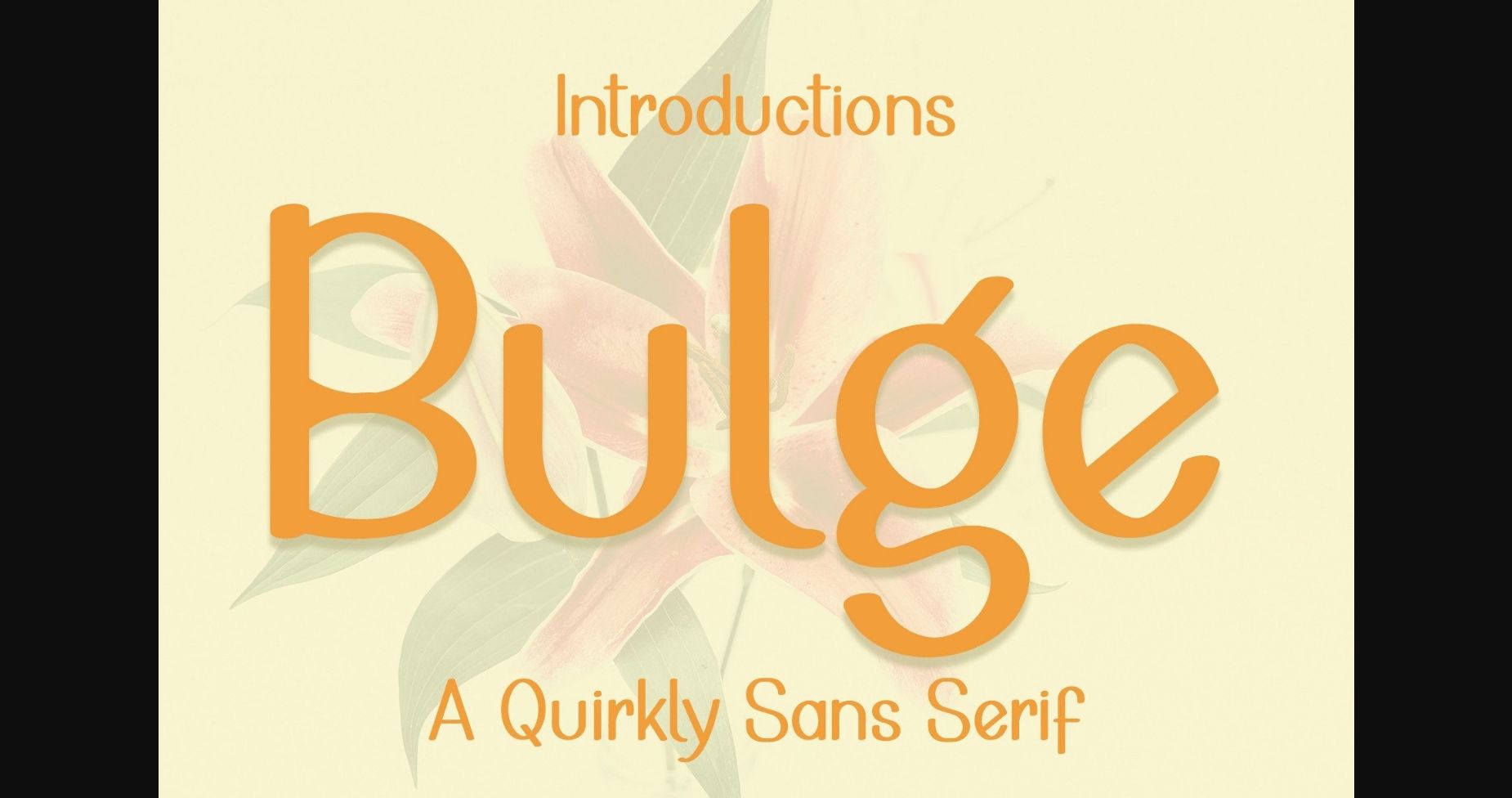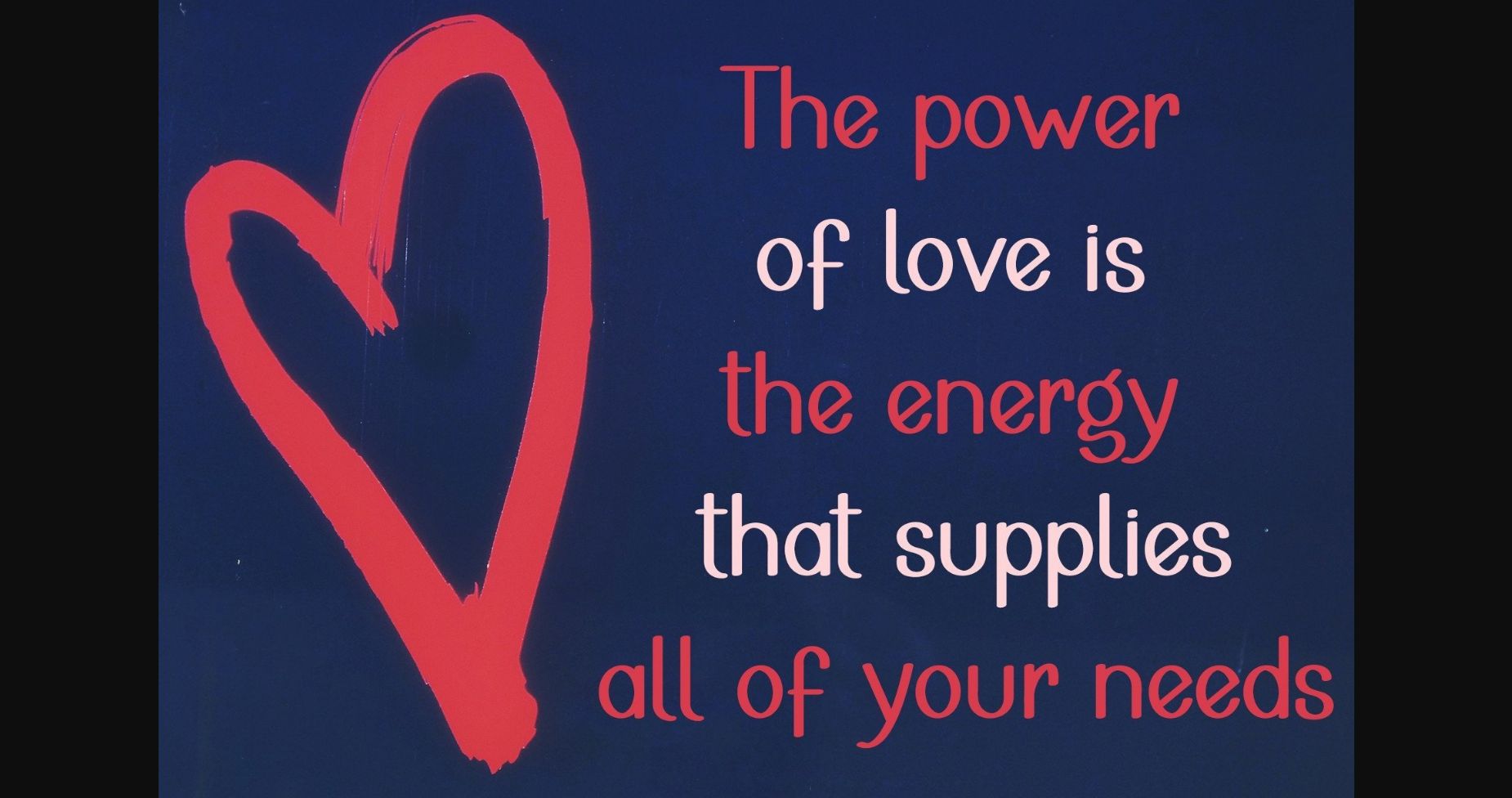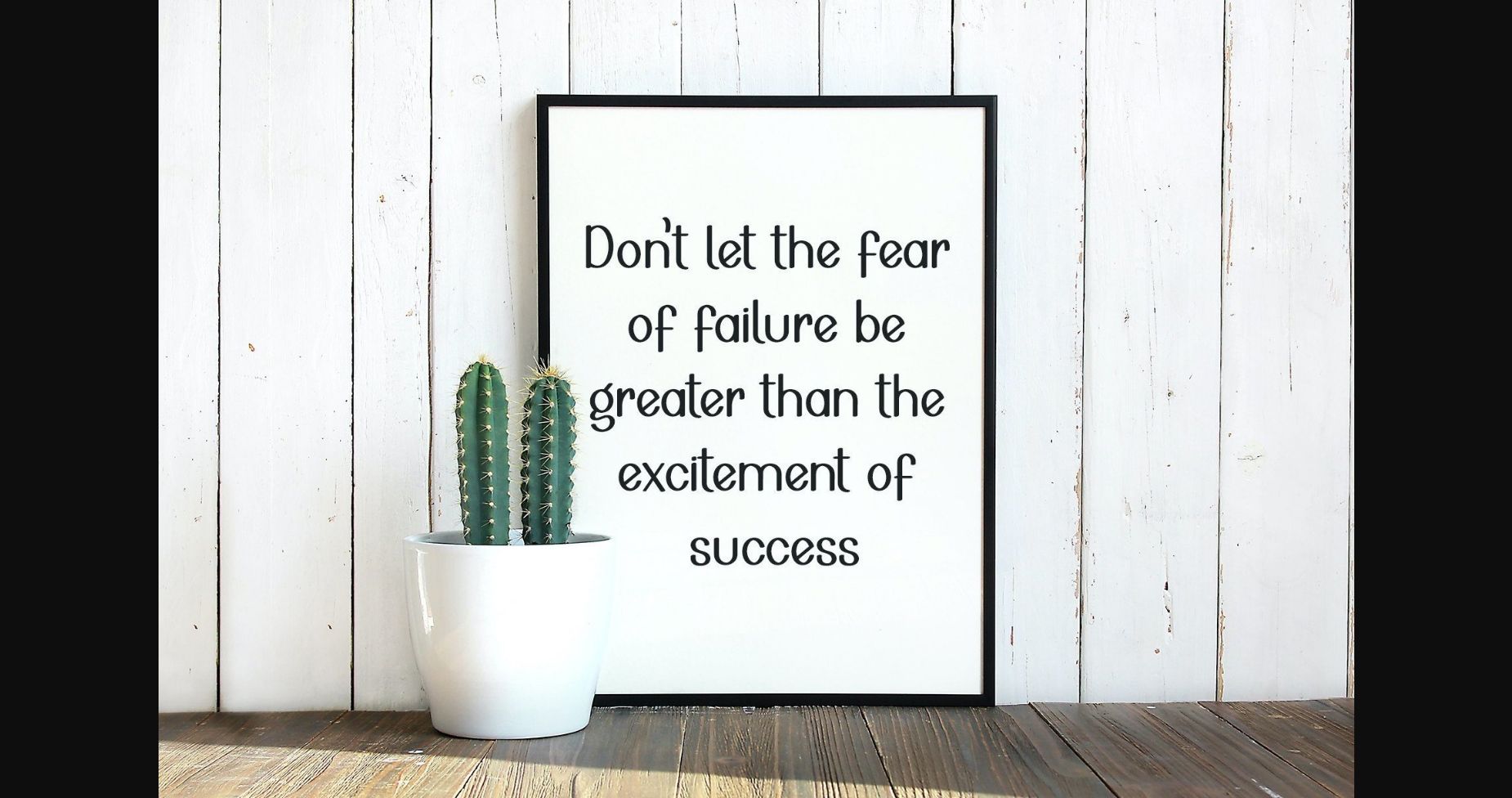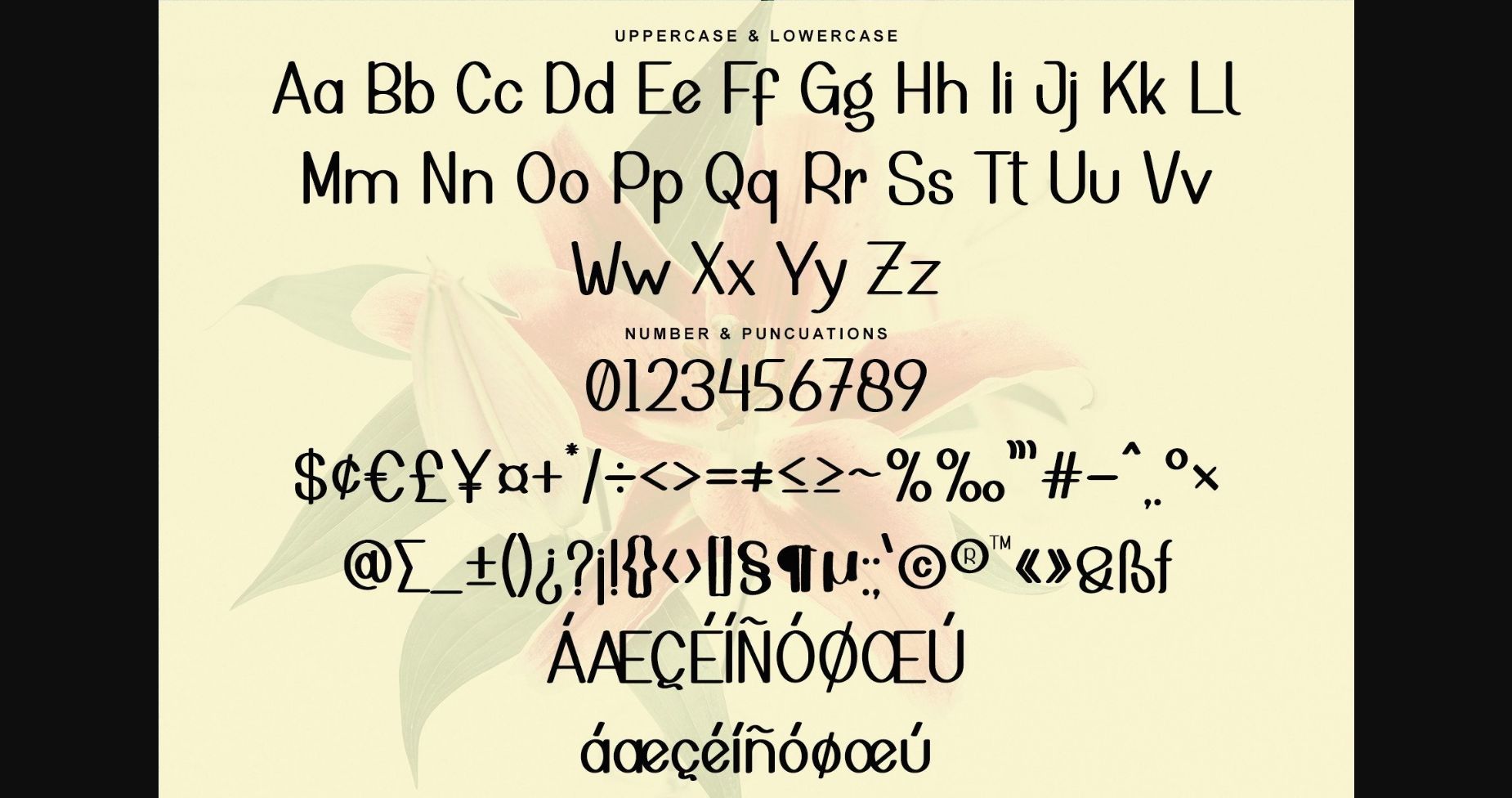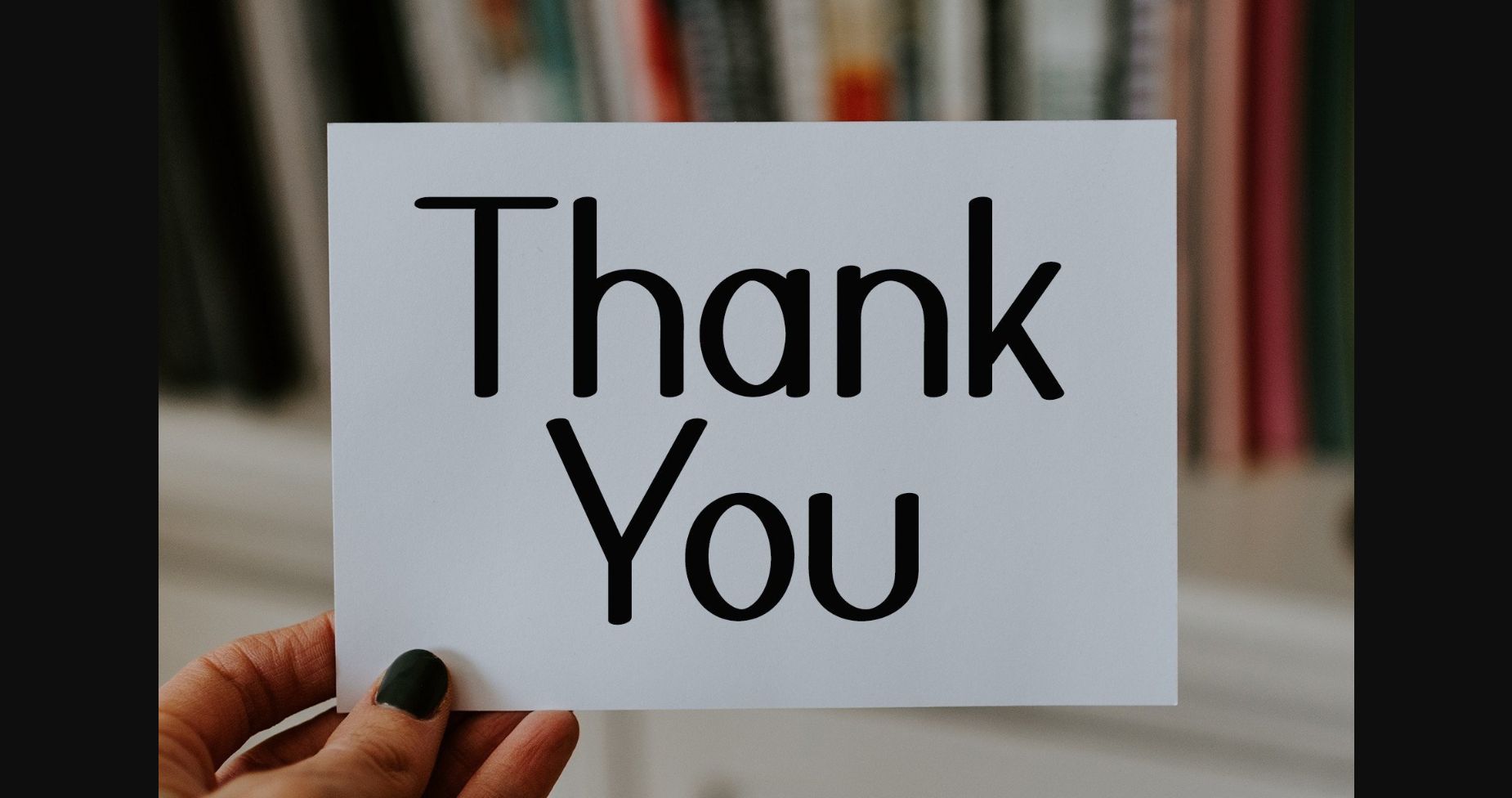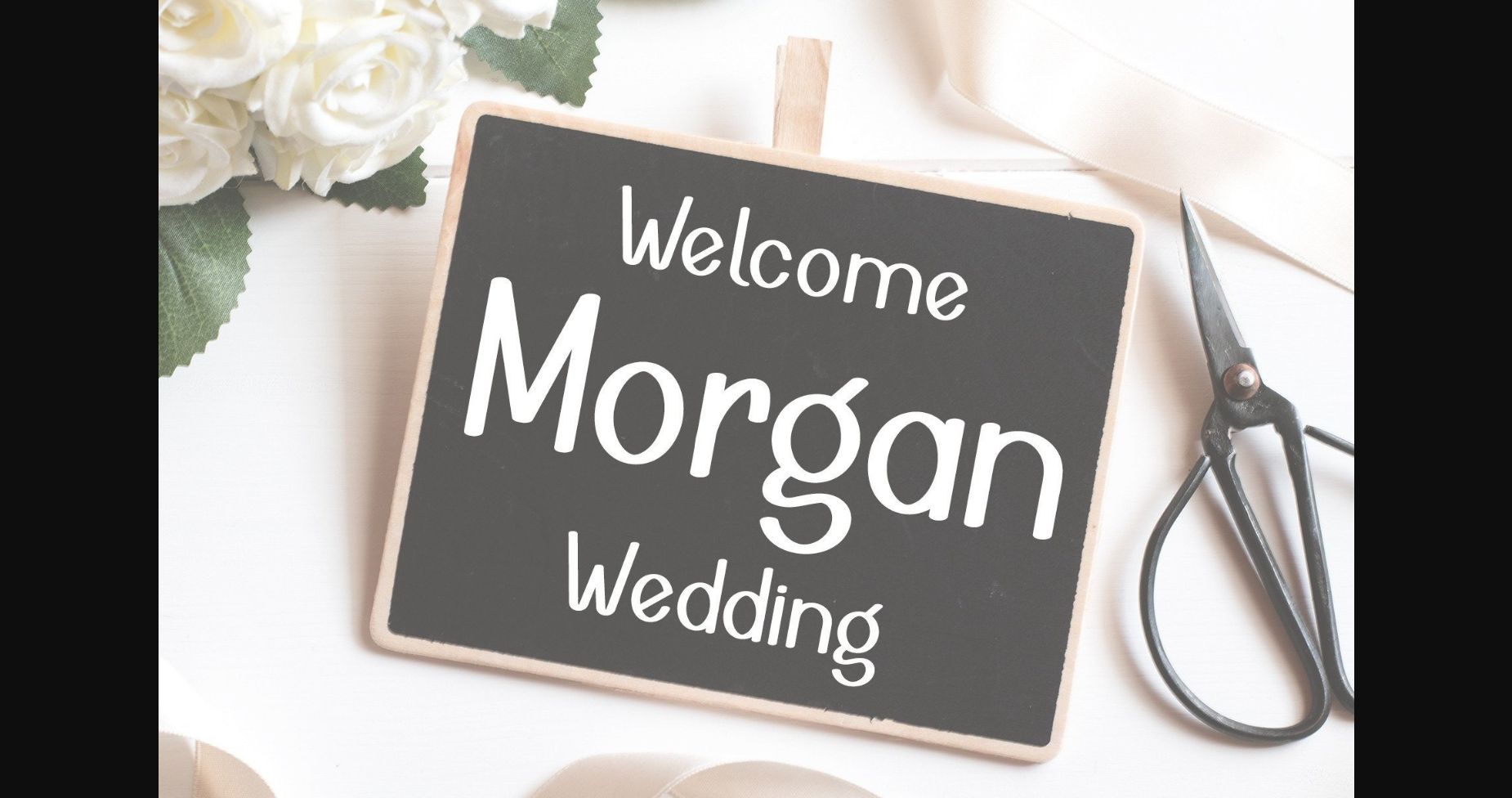
Bulge Font
About Bulge Font
Bulge is a serif font that looks luxurious and majestic. It will look beautiful on a variety of designs that require a personalized style, such as wedding invitations, thank you cards, weddings, greeting cards, logos, and so on. This font is PUA encoded which means you can access all of the glyphs and swashes with ease!